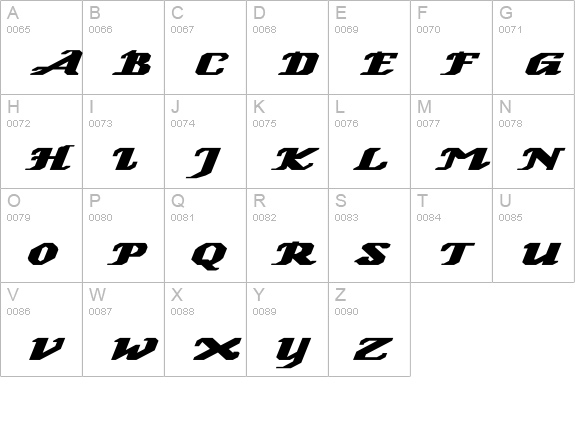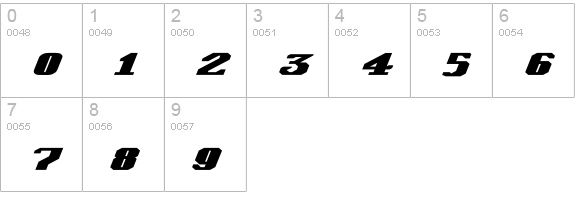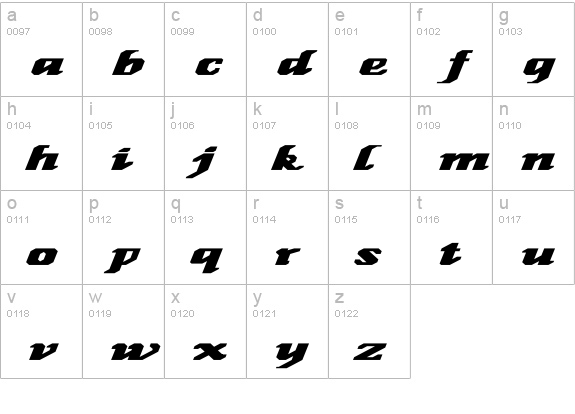
GenoaItalic Ex Bold Font Details
GenoaItalic Ex Bold is a strong, high-contrast variant in the GenoaItalic typeface family \xE2\x80\x94 well suited to headlines, attention-grabbing titles, and strong calls-to-action.
The GenoaItalic Ex Bold font is a striking and elegant typeface that brings a touch of sophistication to any design project. Its bold and slanted style commands attention and adds a modern flair to headlines, titles, and branding materials. With its unique italicized design, this font exudes a sense of luxury and refinement. What makes the GenoaItalic Ex Bold font even more appealing is that it is available for free download at FontsMarket.com. This means that you can easily access this stylish typeface to elevate your creative projects without any cost. Whether you are working on a website, poster, invitation, or any other design, the GenoaItalic Ex Bold font is sure to make a bold statement and leave a lasting impression.